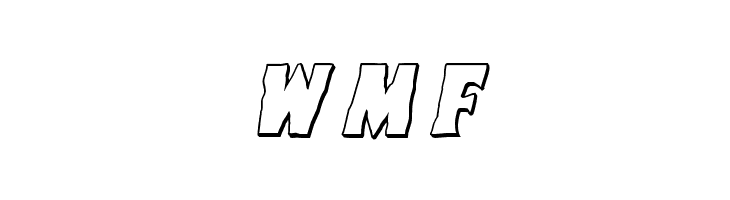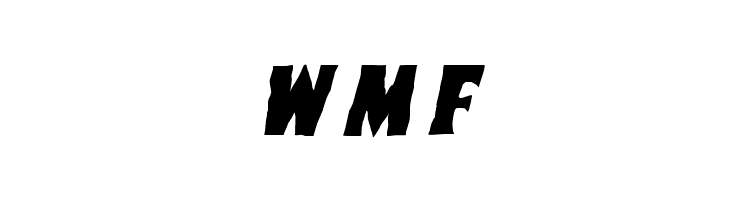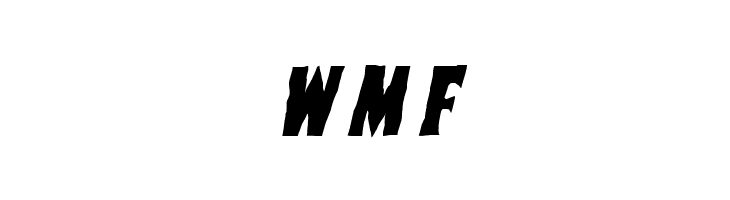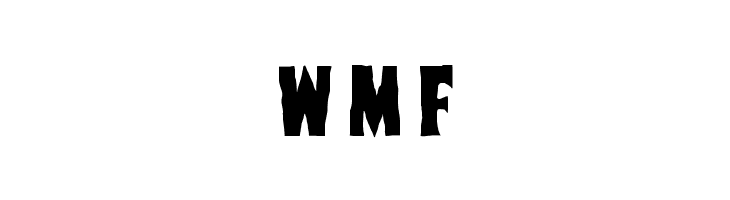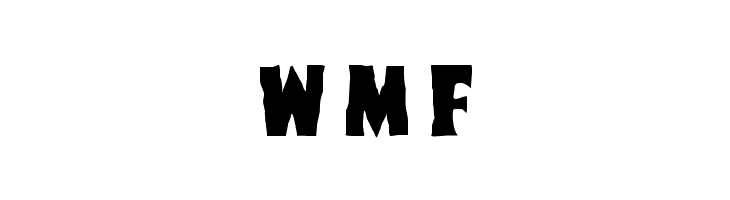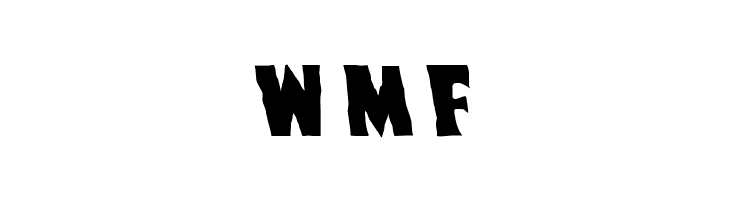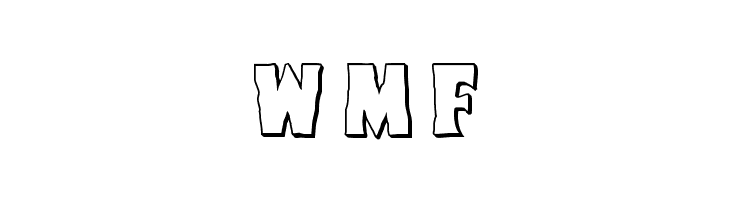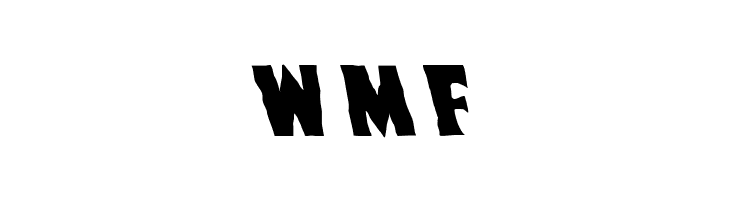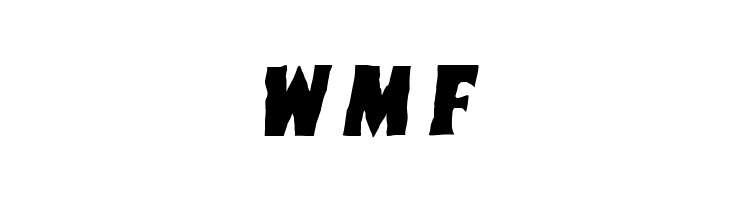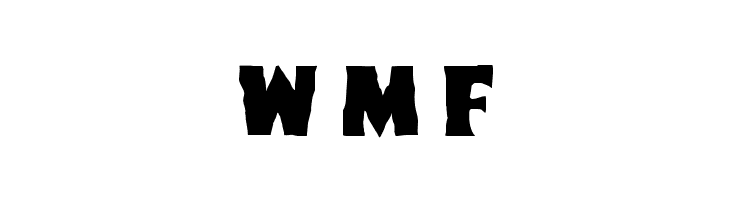
Dusk Dismantled Grunge Font
A bold, distressed font with a grunge aesthetic and vintage appeal.
Good Feeling Script Font
A lively, expressive script font with elegant, flowing characters.
UVN Ben Xuan Bold Font
A bold, expressive script font with high contrast and elegant curves.
Forgiven Script Regular Font
An elegant script font with flowing, ornate characters and graceful swashes.
Techno at Dusk Font
A geometric, futuristic font with a structured, mechanical design.
Dusk Demon Font
A bold, rugged font with a hand-crafted, distressed appearance.
Dusk Demon Condensed Font
A bold, condensed font with a rugged, distressed style.
Dusk Regular Font
A bold, decorative font with a halftone pattern and strong outlines.
Dusk Demon Gradient Italic Font
A bold, italicized font with a gradient effect and dynamic, striped design.
Dusk Demon Expanded Font
A bold, rugged font with thick, uneven strokes and dynamic character shapes.
During Dusk Demo Sans Font
A bold, geometric font with a modern and structured design.
Dusk Demon Staggered Font
A bold, jagged, and dramatic font with an intense, chaotic style.
Dusk Demon Italic Font
A bold, italic font with a dynamic and edgy style.
Dusk Demon Rotated 2 Font
A bold, rugged font with a dynamic, graffiti-like style.
Dusk Demon Gradient Font
A bold, dynamic font with a unique gradient effect created by horizontal lines.
Dusk Demon Rotalic Font
A bold, slanted, and dynamic font with sharp, angular edges.
Dusk Demon Expanded Italic Font
A bold, italic, and expanded font with a dynamic and modern style.
Dusk Demon 3D Font
A bold, 3D, comic-style font with irregular, outlined characters.
Dusk Demon Rotated Font
A bold, rugged font with jagged edges and a distressed look.